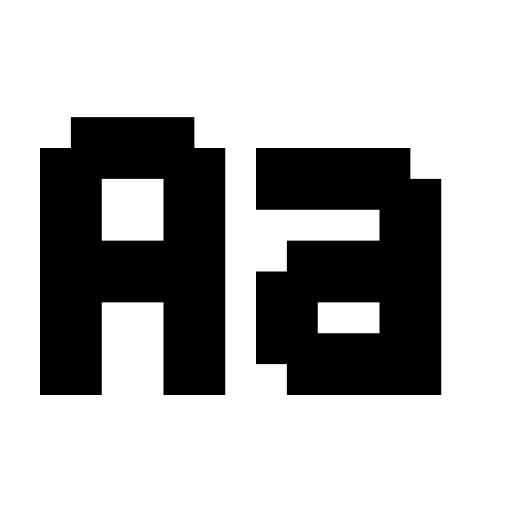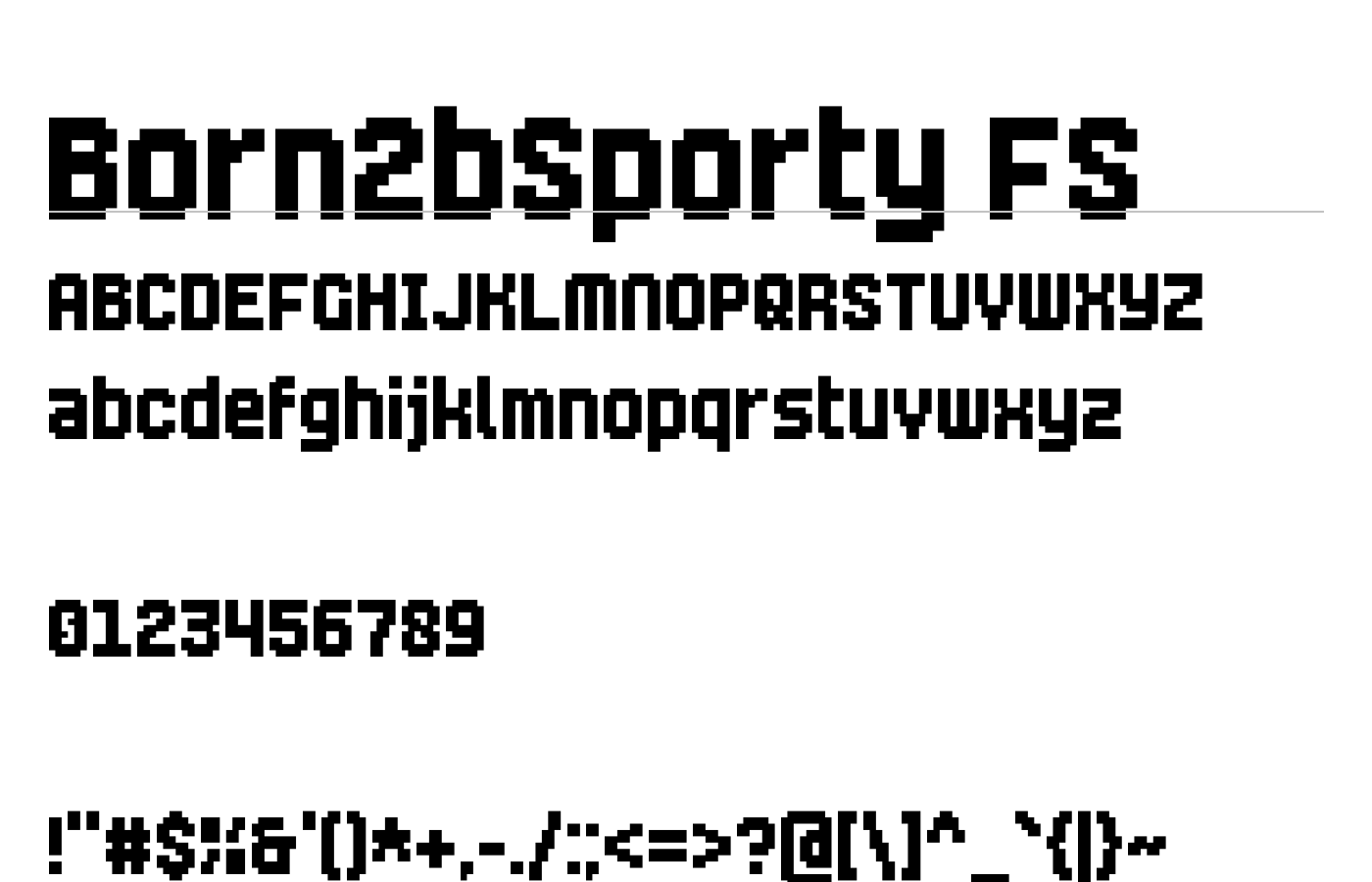
Born2bSporty FS is a bold, pixel-inspired sans serif font characterized by its blocky, geometric letterforms and consistent stroke weight. It offers a retro digital vibe with its uniform, squared shapes and monospaced feel, making it perfect for tech-themed designs, gaming, and digital branding. This font stands out in headlines, logos, and packaging where a strong, modern, and dynamic impression is desired.
Born2bSporty FS Font
About Born2bSporty FS Font
| Font family | Born2bSporty FS Font |
| Designer | Haley Wakamatsu (UkiyoMoji Fonts) |